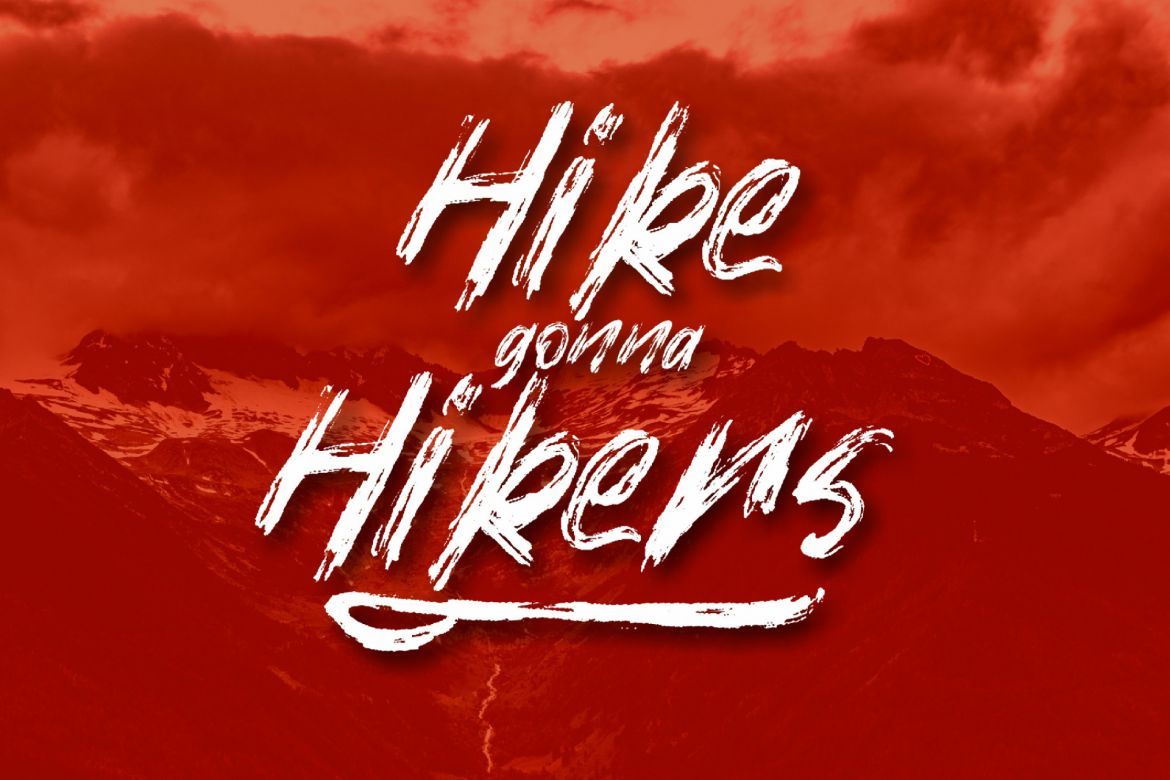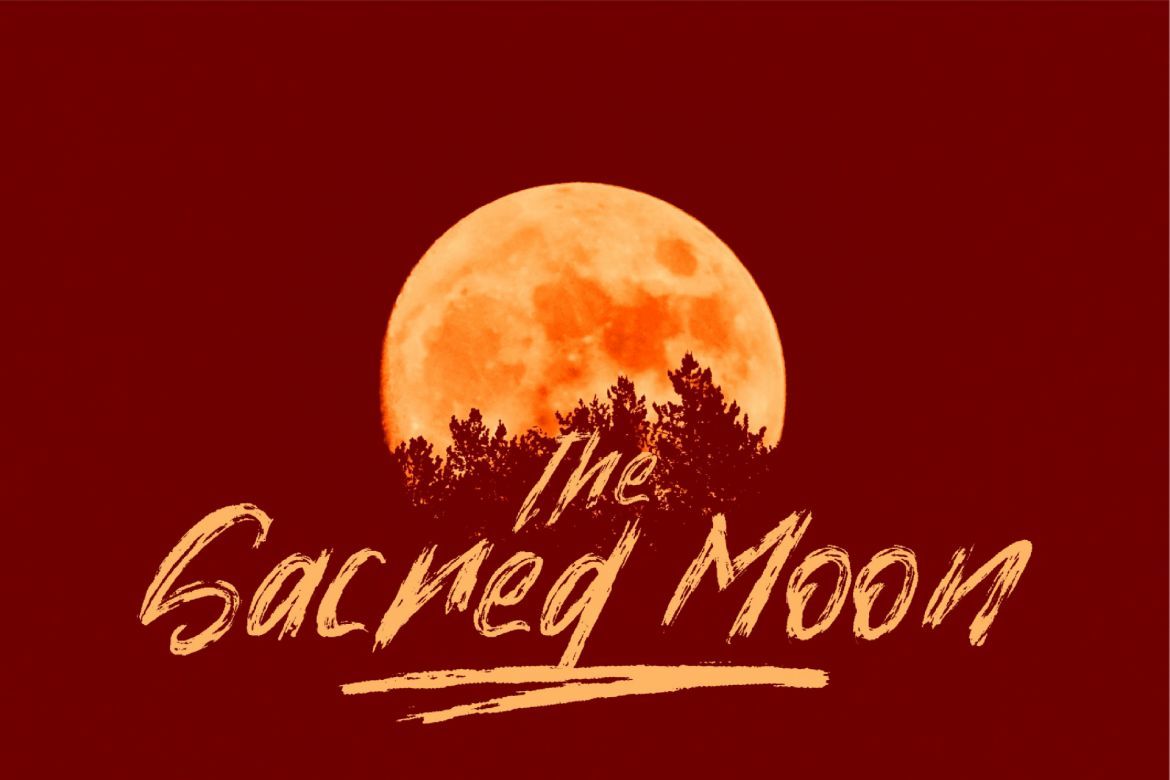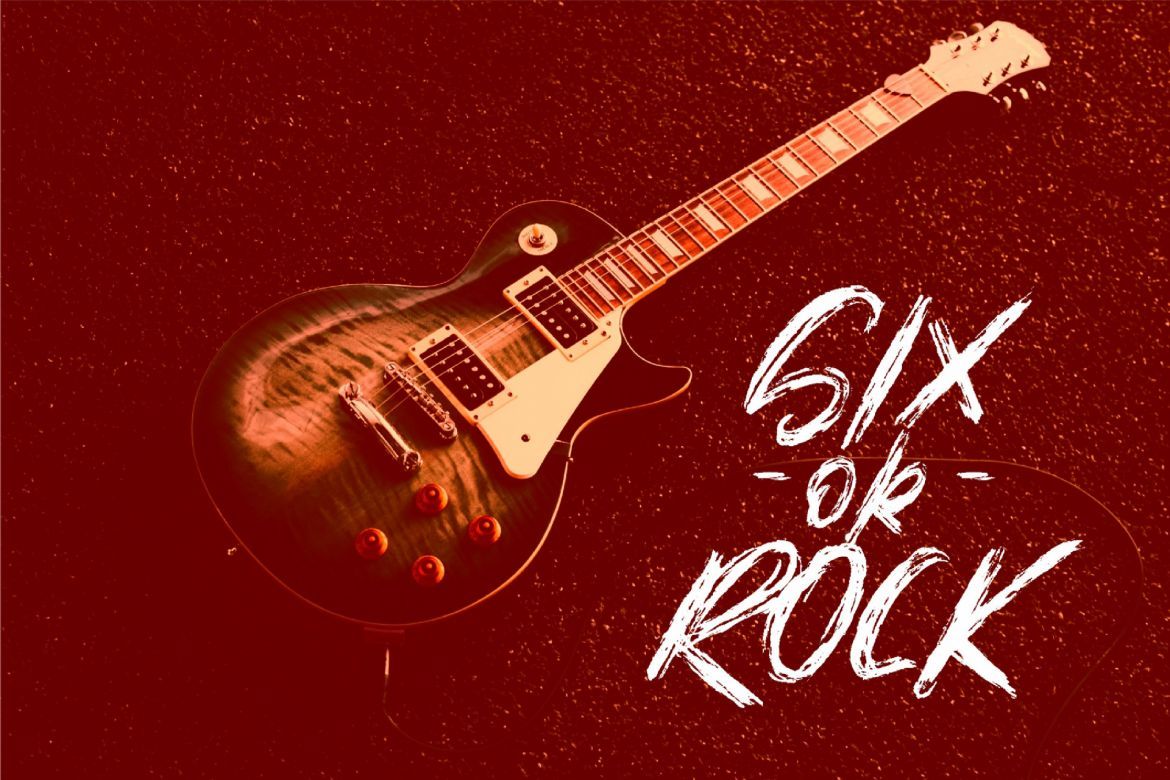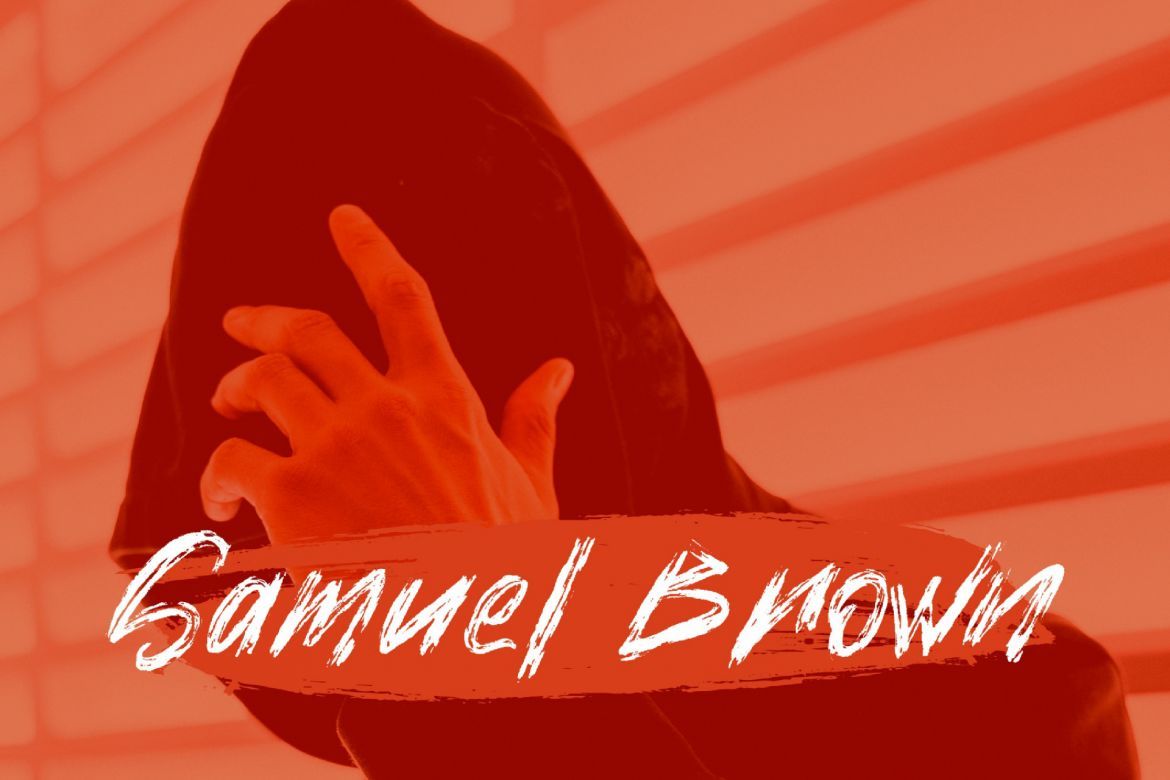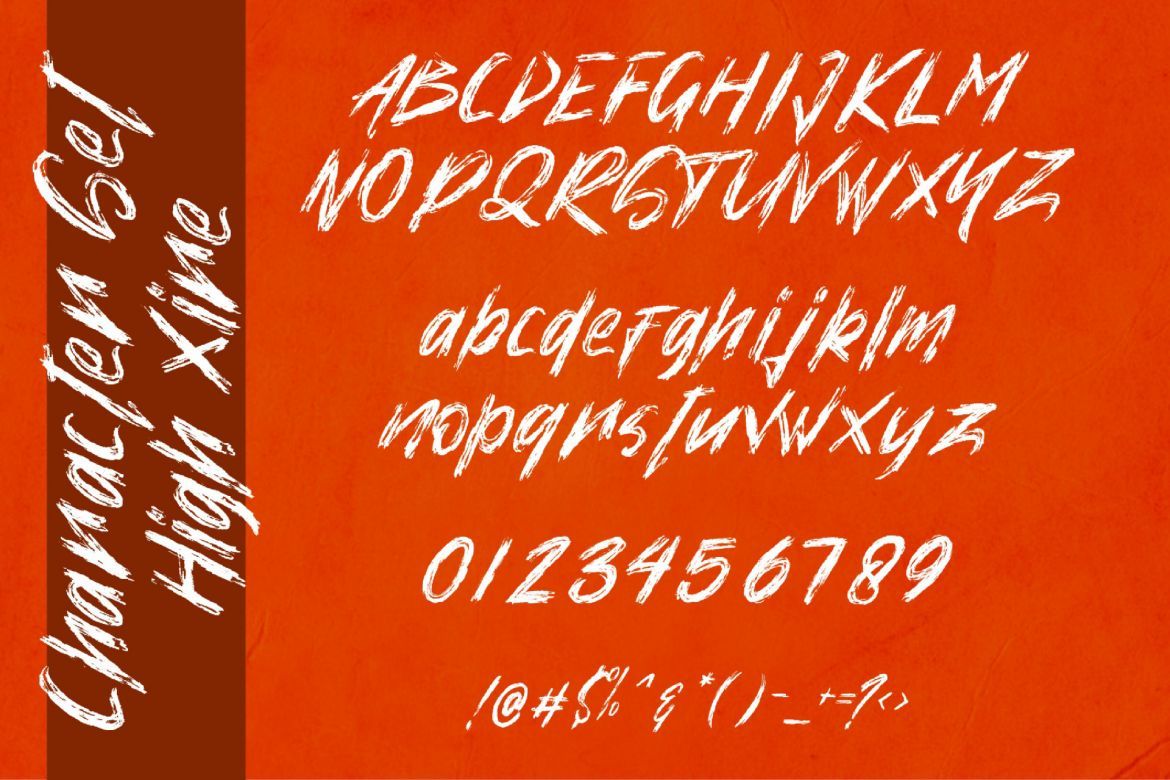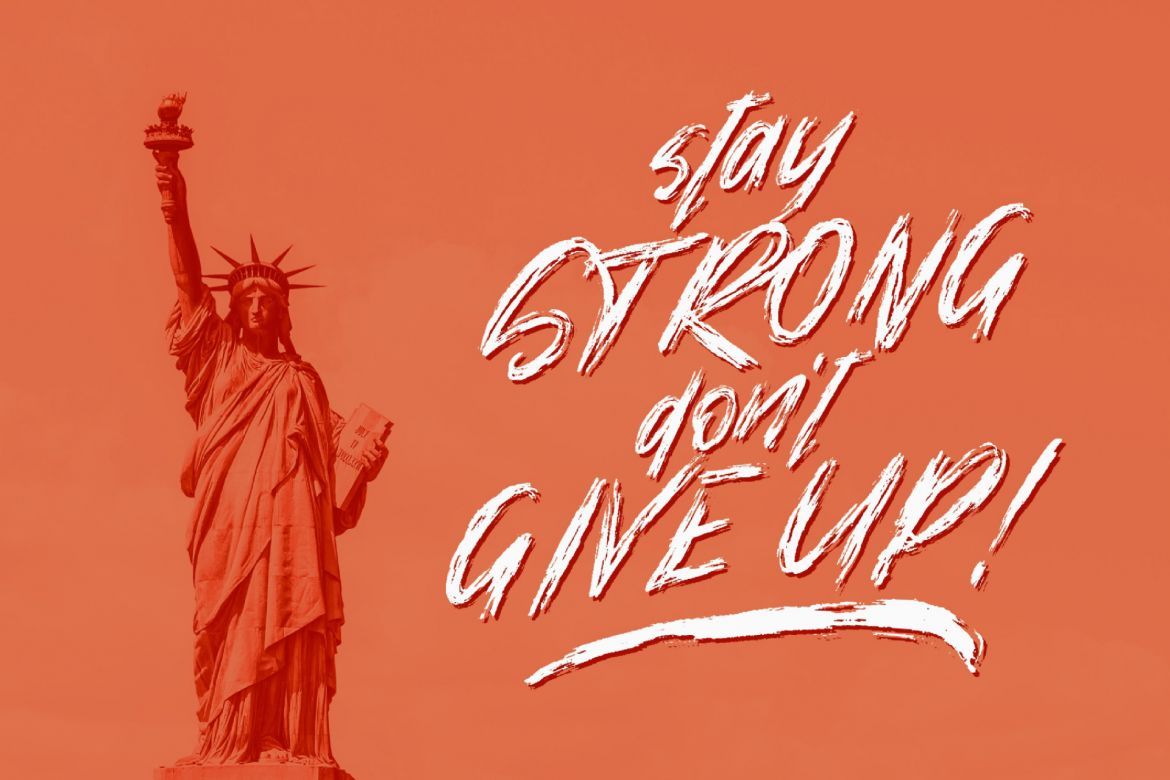
High Xire - Brush Font
Introducing a new dry brush font!
HIGH XIRE combines attractive curves with a fresh urban edge; delivering a stylish which is guaranteed to add an eye-catching appeal to your logo designs, brand imagery, handwritten quotes, product packaging, merchandise & social media posts
• 52 extra swash for more stylish!
• all caps
• detailed brushes